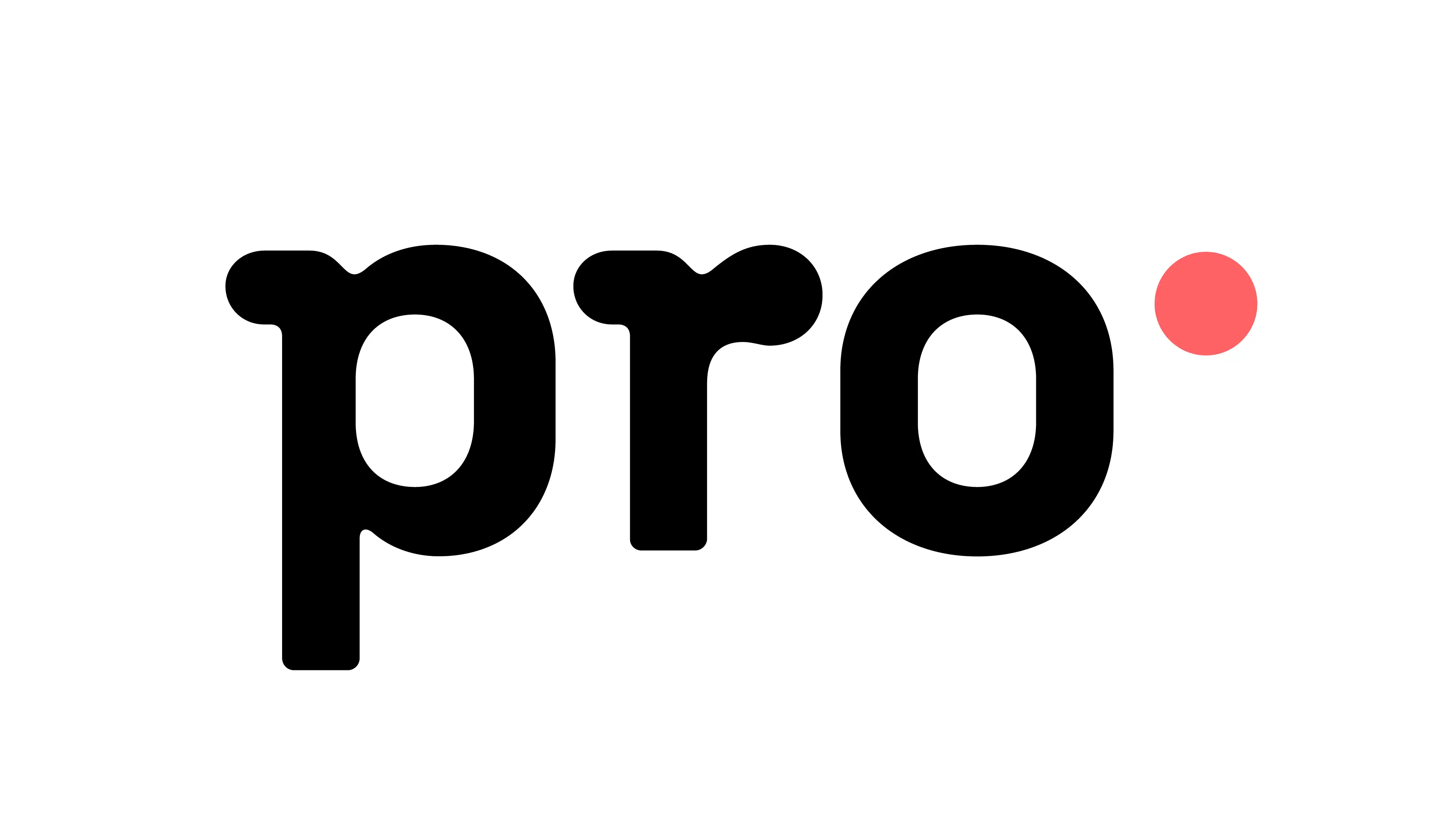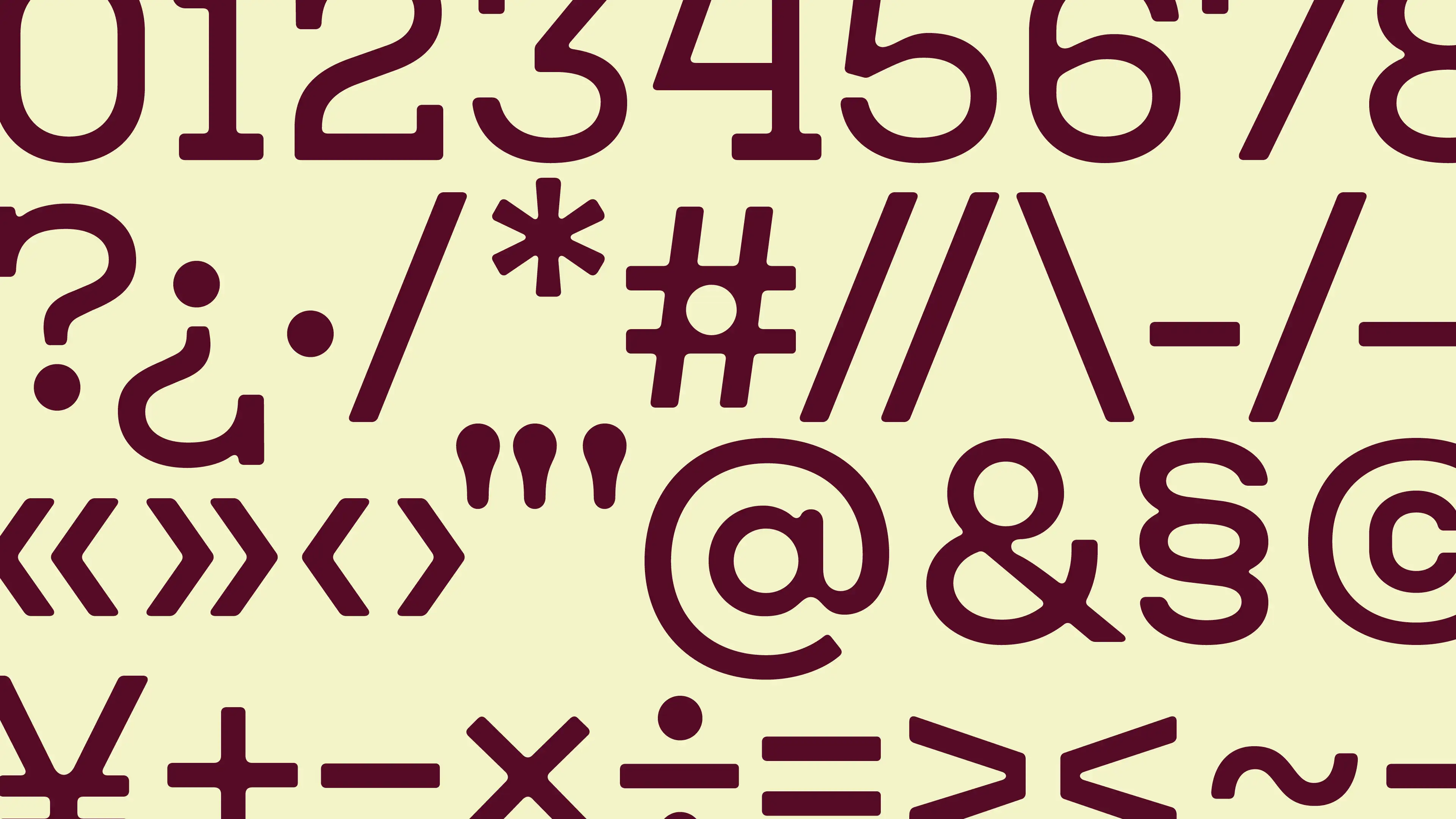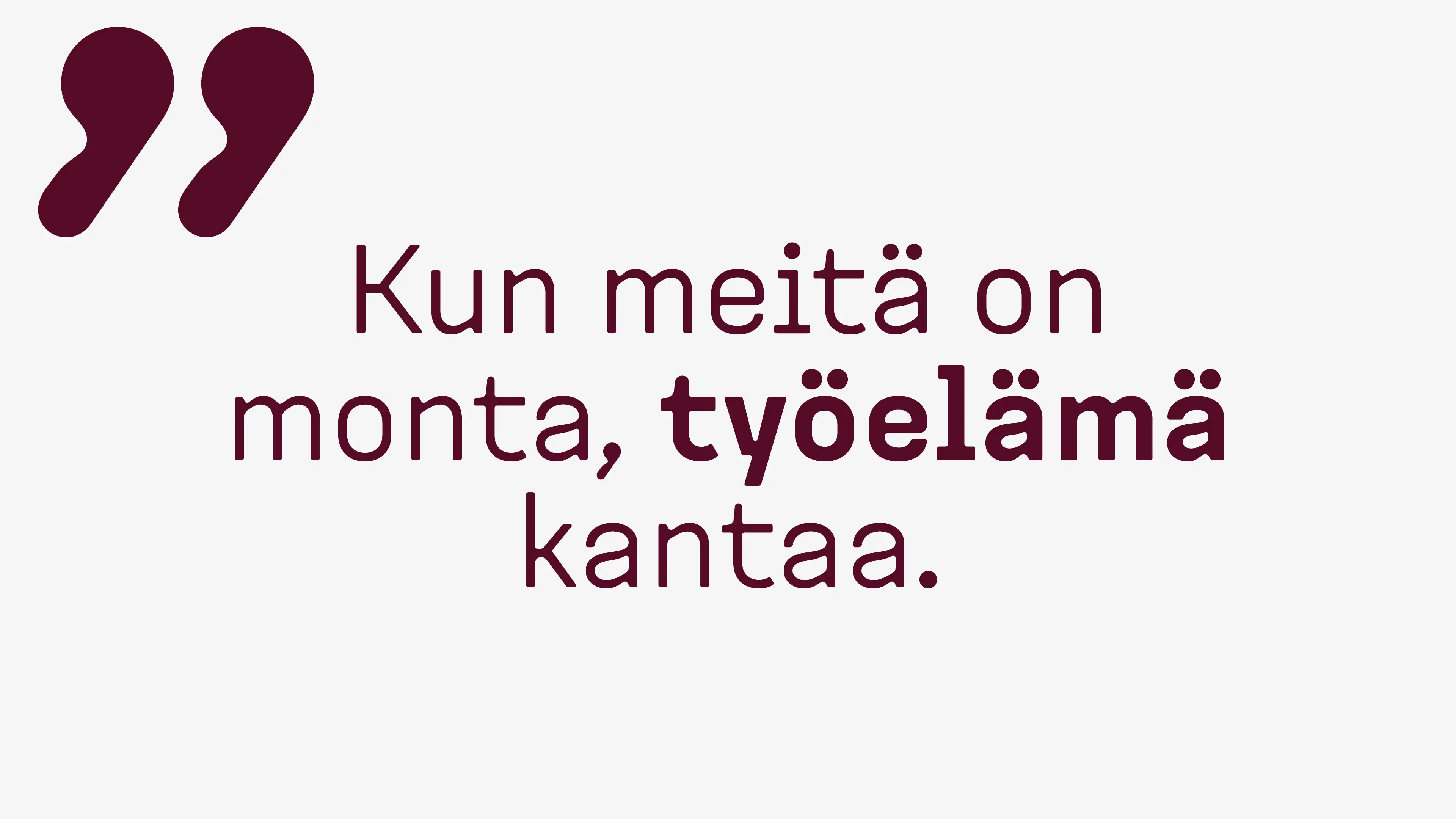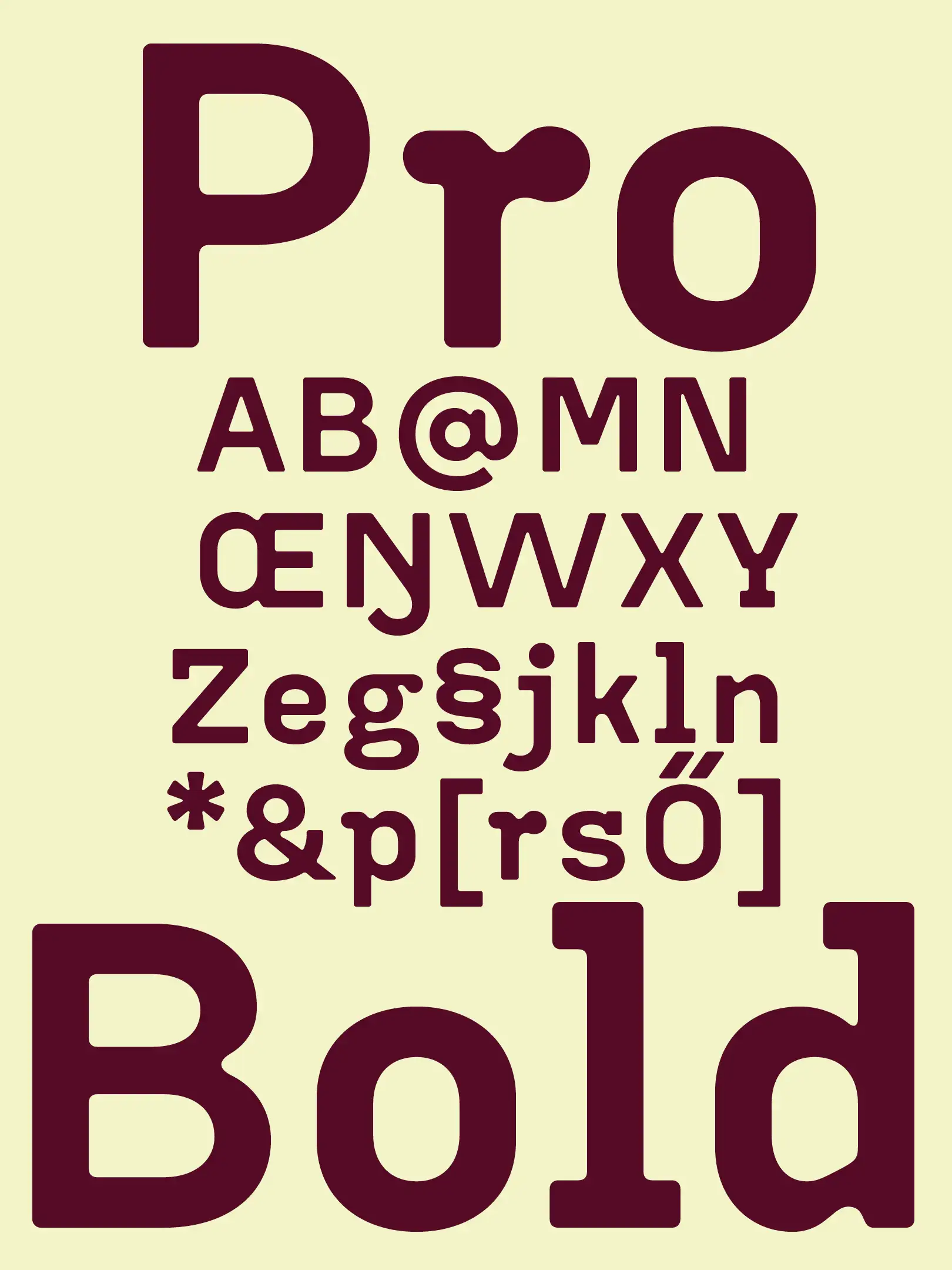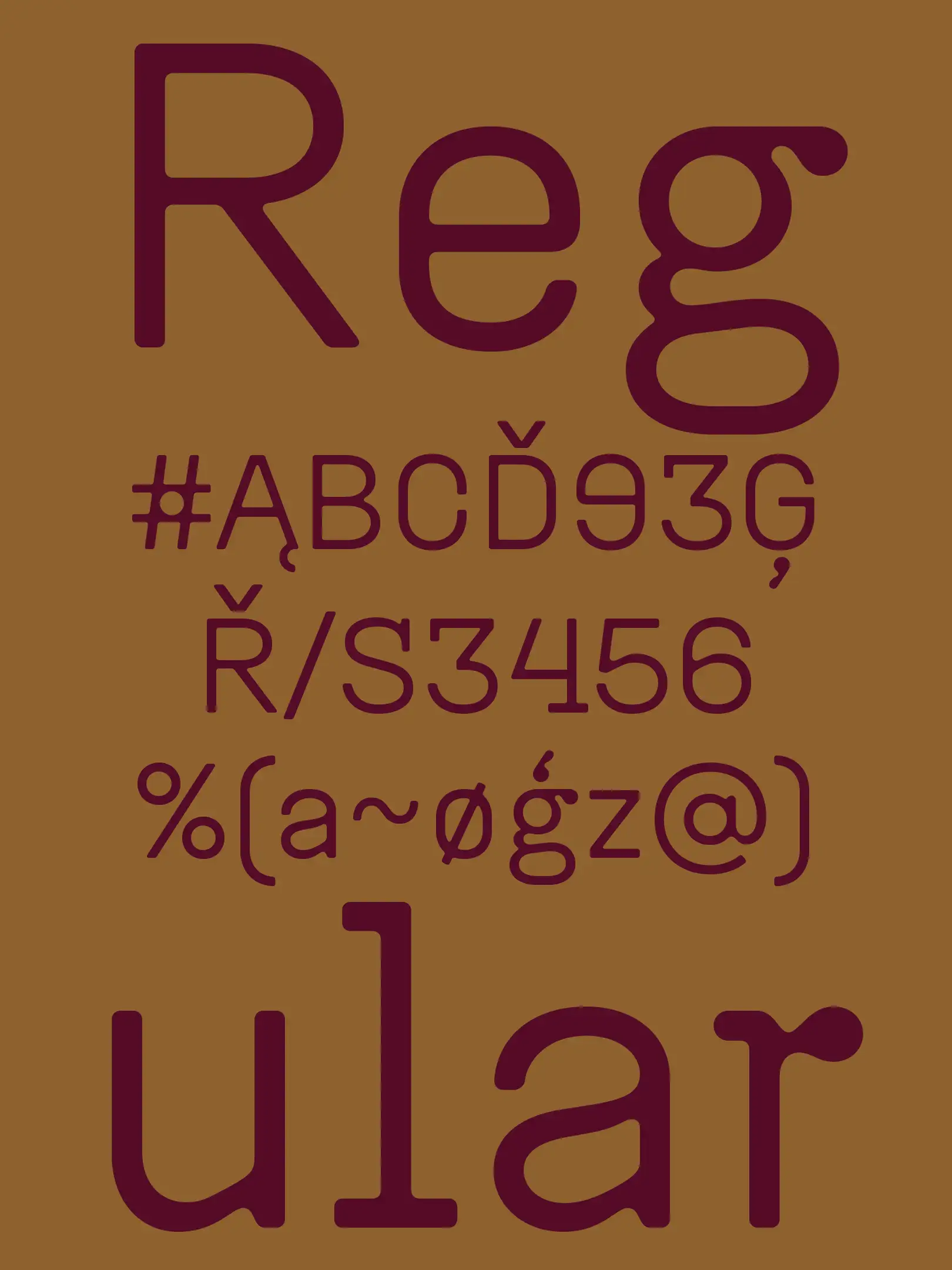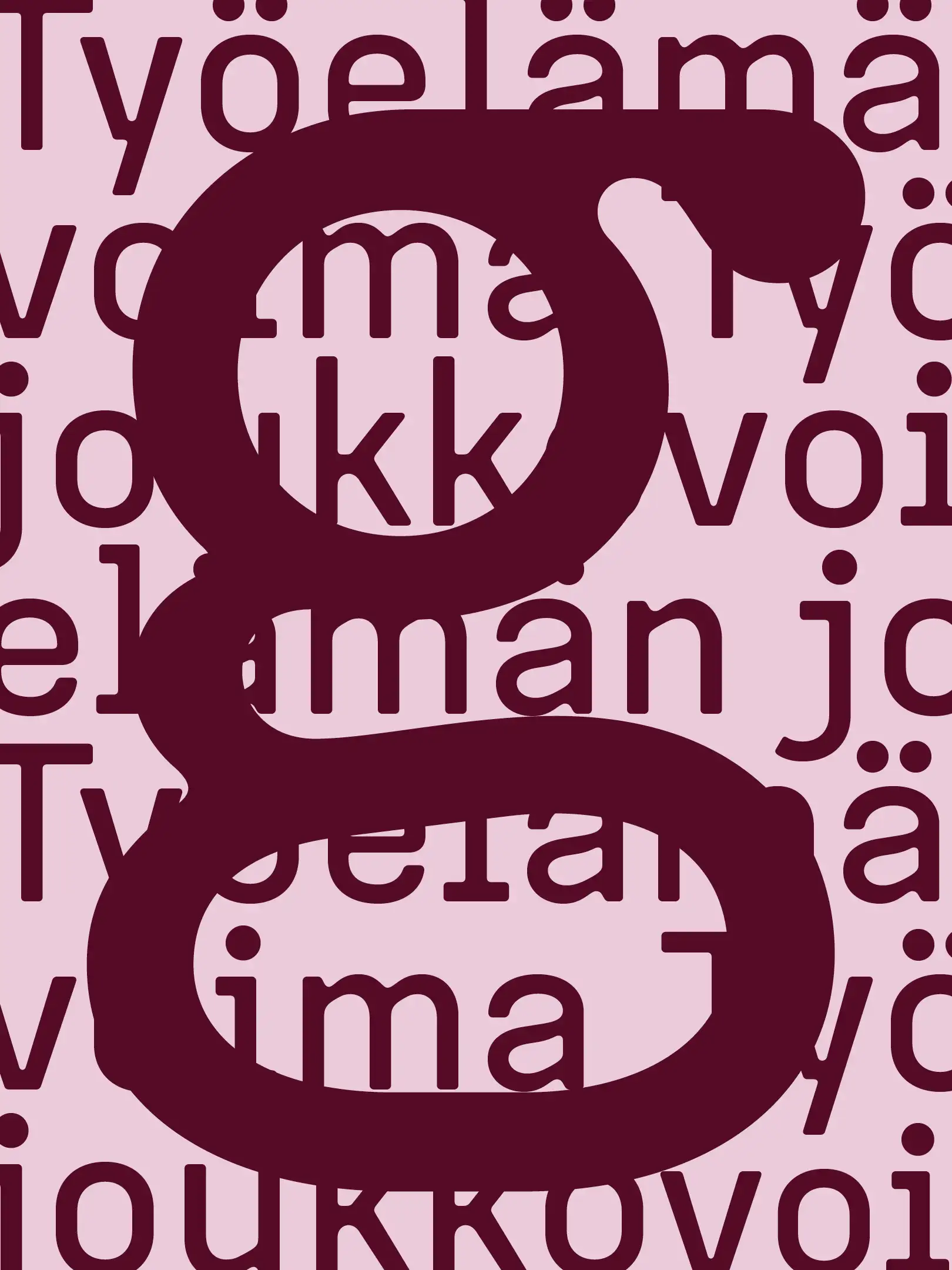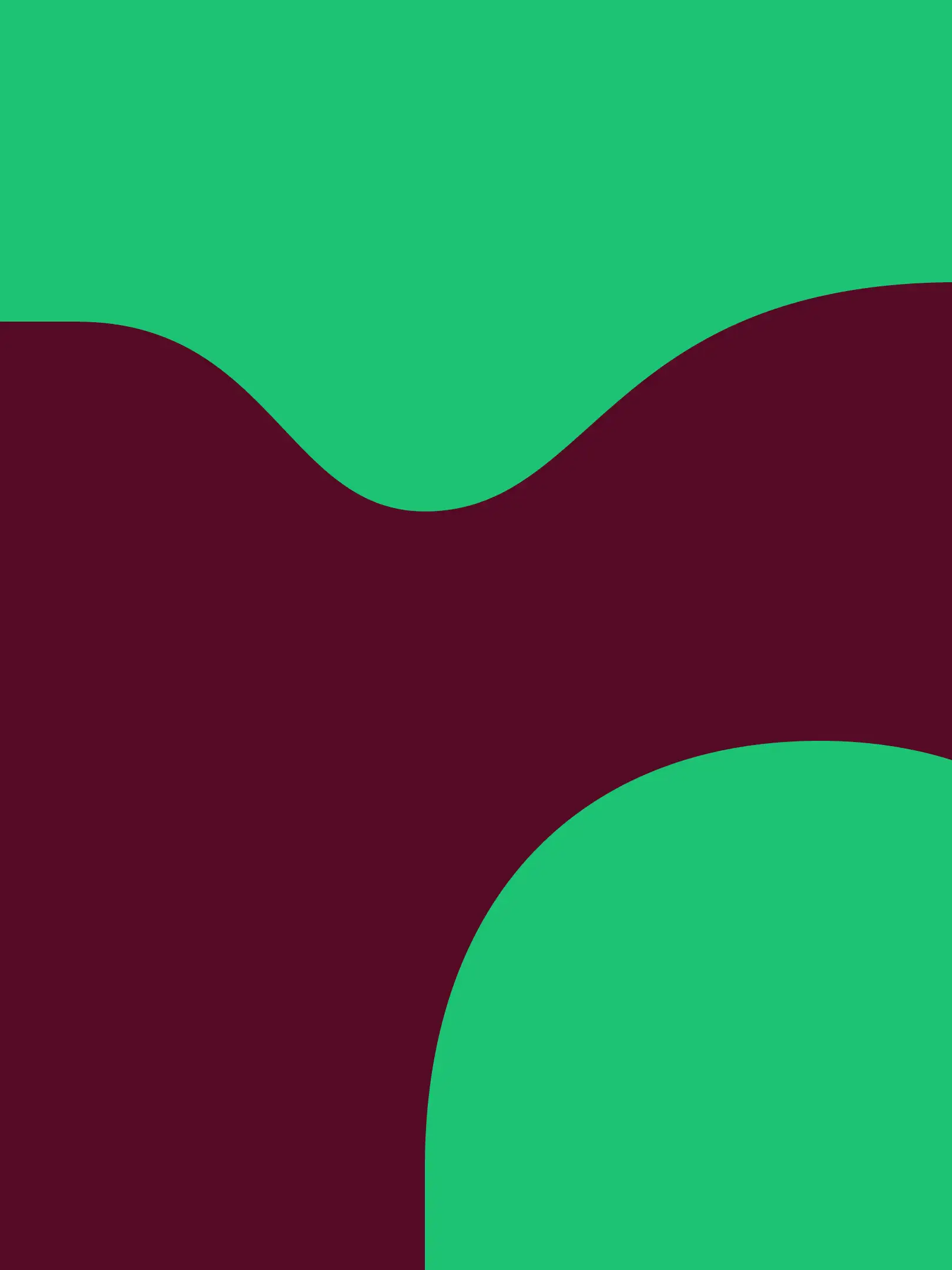
Ammattiliitto Pro is one of Finland’s biggest trade unions, and it was time for a brand refresh. The rebranding was led by
Werklig, and we at Helsinki Type Studio jumped on board to create a custom font for Pro. Our Riite font had the right design language for creating a new font for Pro. We wove rounded shapes into the letter details, giving a nod to Pro's old logo and its history.